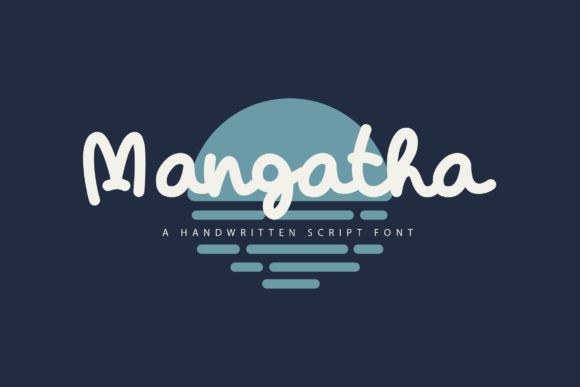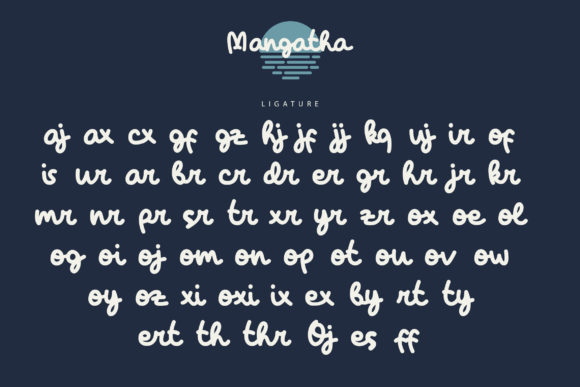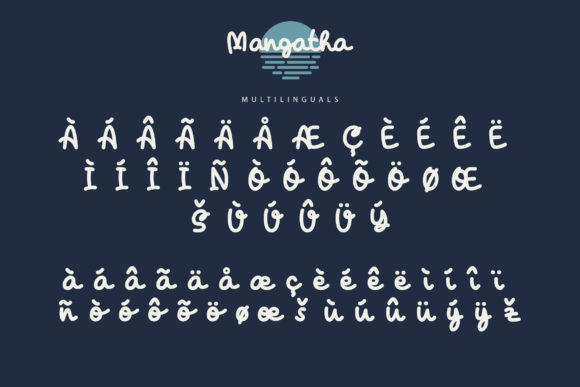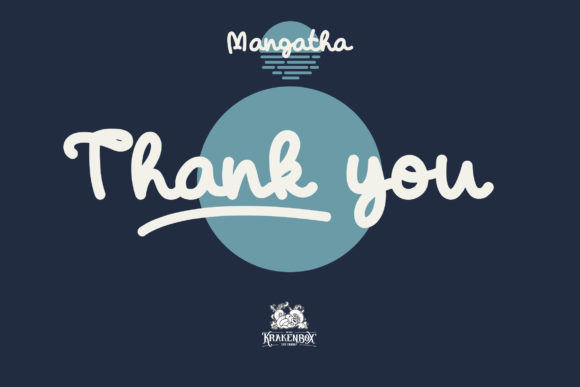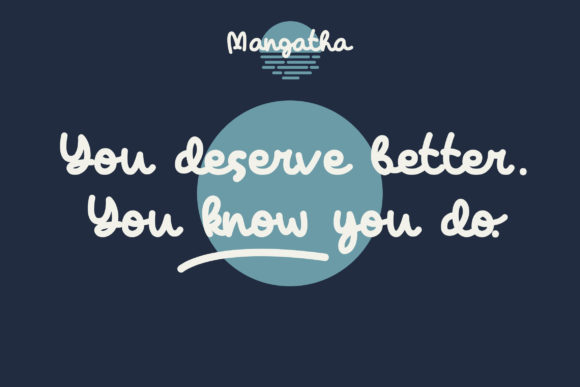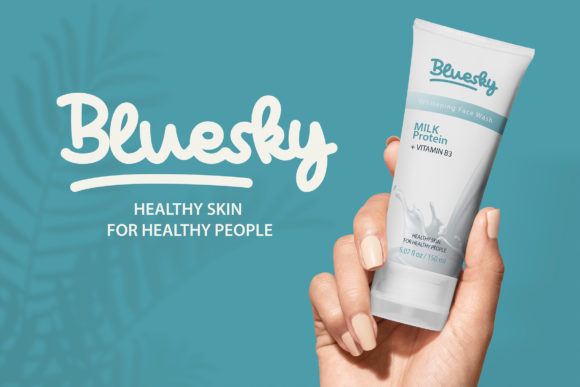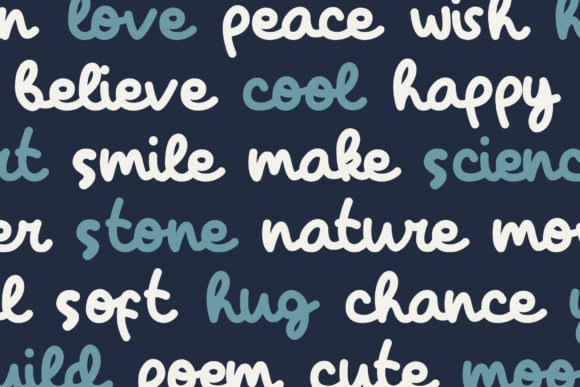
Mangatha Font
About Mangatha Font
Mangatha is a delicate handwritten script font. It’s a great font for fashion, apparel projects, signature, album cover, logo, branding, magazine, social media, & advertisements, and so much more. This font is PUA encoded which means you can access all of the glyphs and swashes with ease!